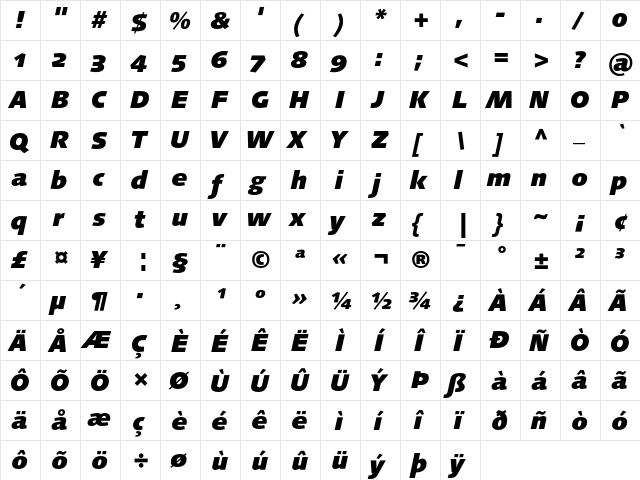
LinotypeSyntaxOsF BlackIt
Design Context for LinotypeSyntaxOsF Typeface
LinotypeSyntaxOsF is a composed and adaptable typeface that performs quietly and consistently across a wide range of design contexts.
Pro Tip: Use LinotypeSyntaxOsF in both headline and body roles to test its range before committing to a single application.